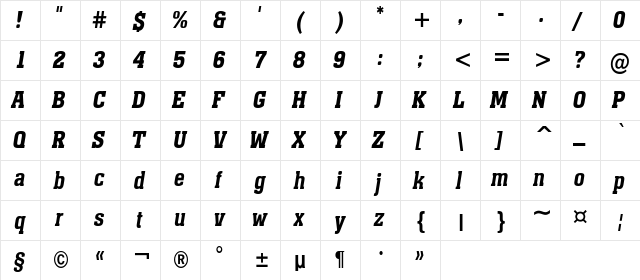
a_MonumentoNr DemiBoldItalic
Design Context for a_MonumentoNr Typeface
a_MonumentoNr takes a measured approach to typography — its balanced proportions and neutral character make it a reliable workhorse for both digital and print work. Its italic angle brings a sense of urgency and motion to the letterforms. The heavy weight commands attention and anchors typographic hierarchies.
Pro Tip: Use a_MonumentoNr for emphasis, pull quotes, and subheadings where its slanted energy can add rhythm to the layout.